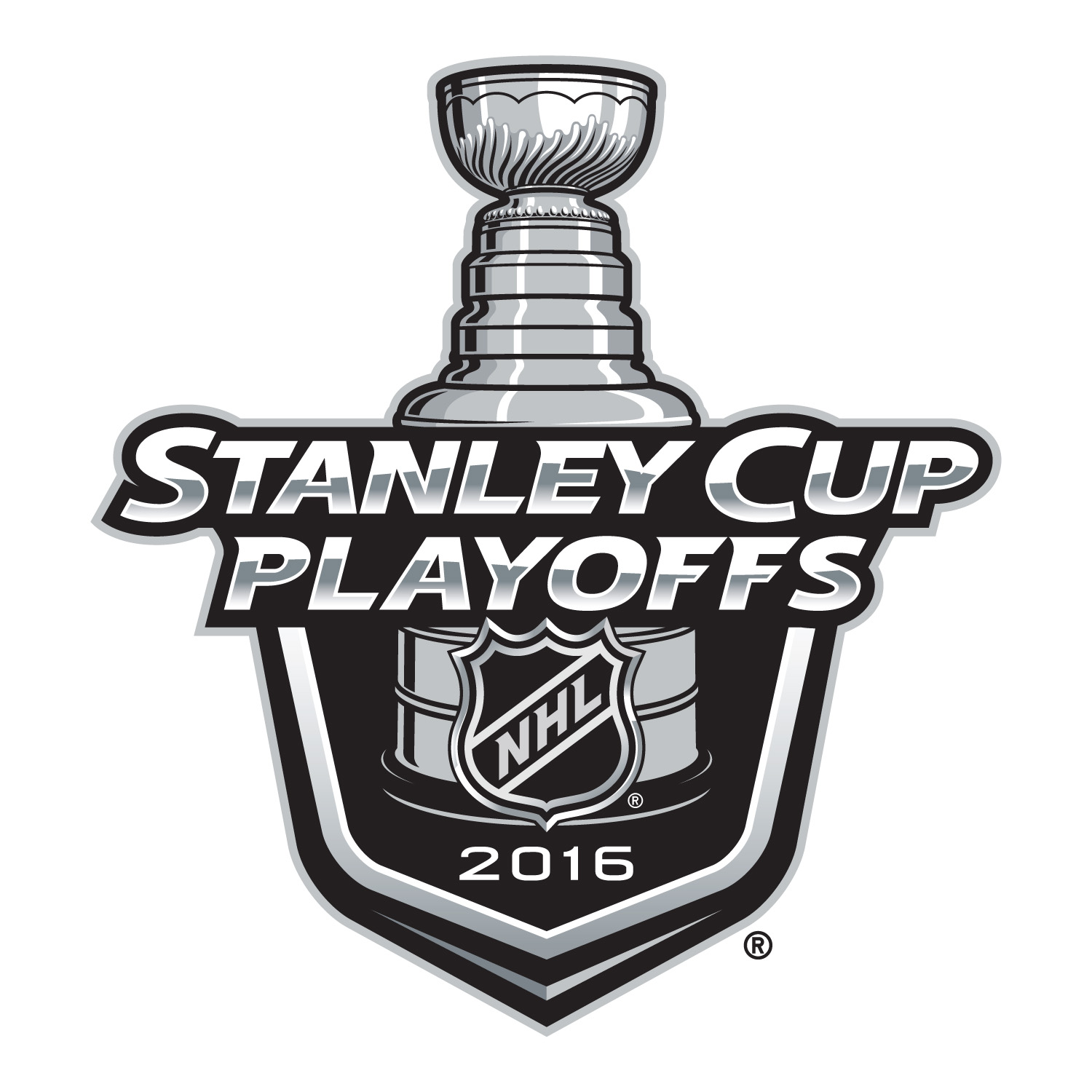
2016 Stanley Cup playoffs Logo Font
Fonts in UseThe Stanley Cup playoffs, part of the NHL, began on April 13, 2016, featuring a thrilling elimination tournament with four rounds of best-of-seven series.
The Stanley Cup playoffs logo seems to have been created using Frutiger Black Italic font with minor serifs incorporated. The year "2016" is displayed in Bo Berndal's Batory Wide font.